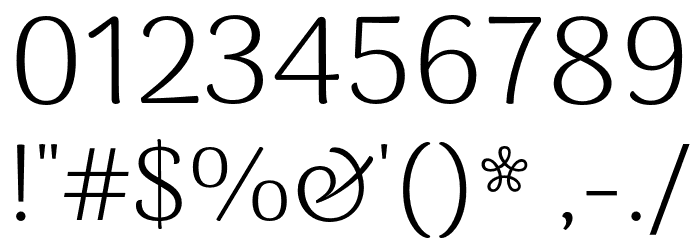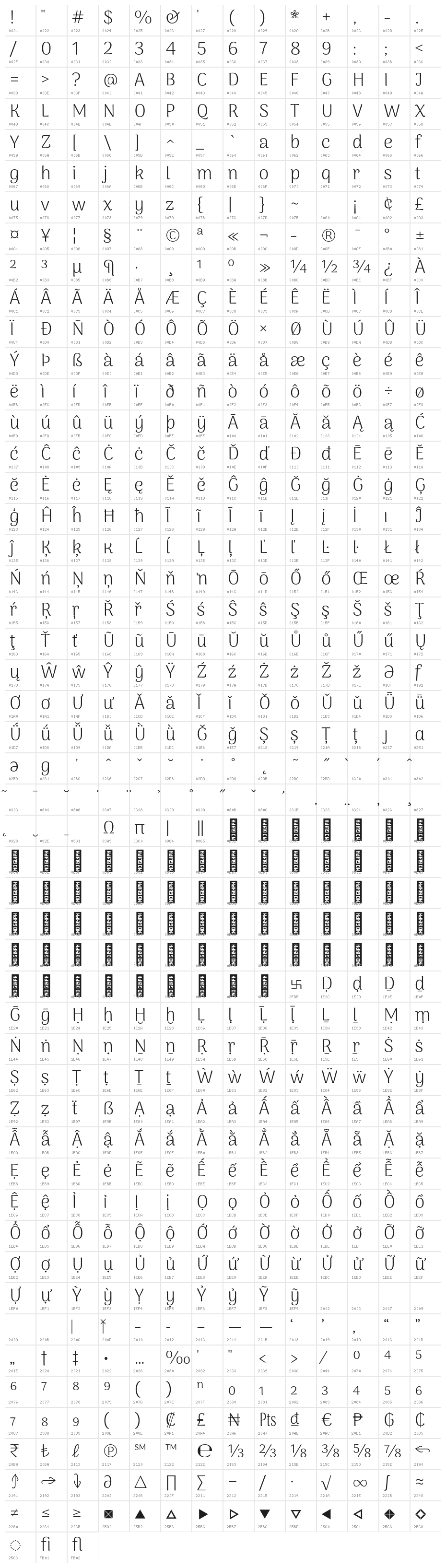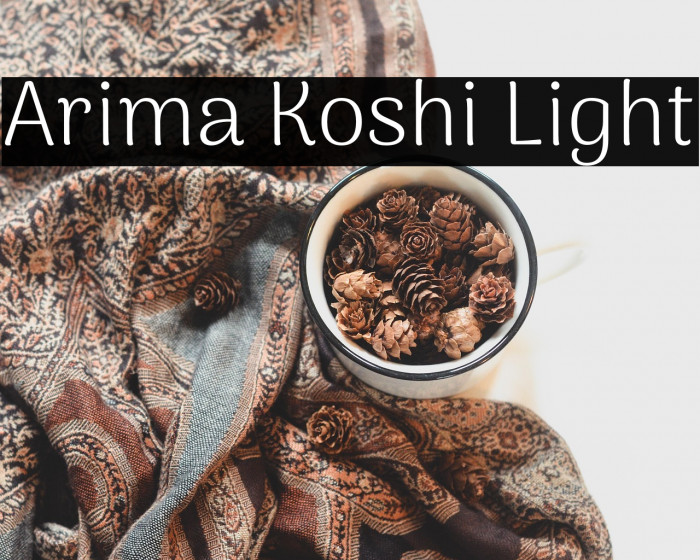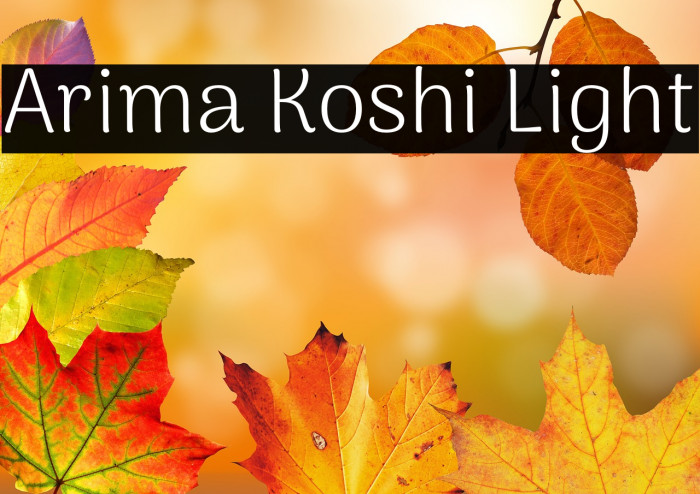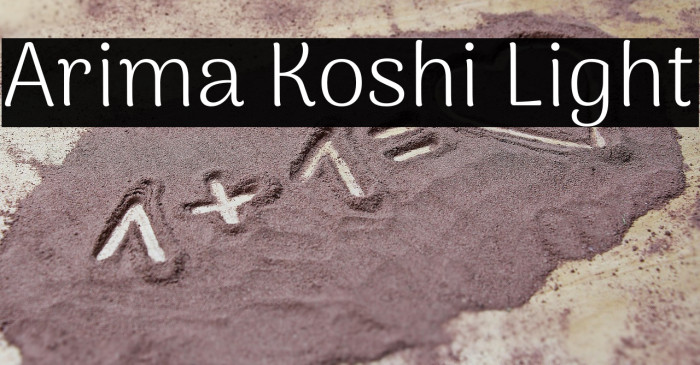
Arima Koshi Light Font
Arima Koshi Light Description
This font features a clean and modern design with a slightly rounded appearance, giving it a friendly and approachable feel. The characters are evenly spaced, providing excellent readability. The strokes are consistent in width, contributing to a harmonious and balanced look. The font includes a full set of uppercase and lowercase letters, numerals, and a variety of special characters, making it versatile for different uses. Its simplicity and elegance make it suitable for both digital and print media, offering a contemporary aesthetic that can enhance any project.
| Proposed Projects | Ideal for web design, branding, advertising, and editorial projects where a modern and approachable look is desired. |